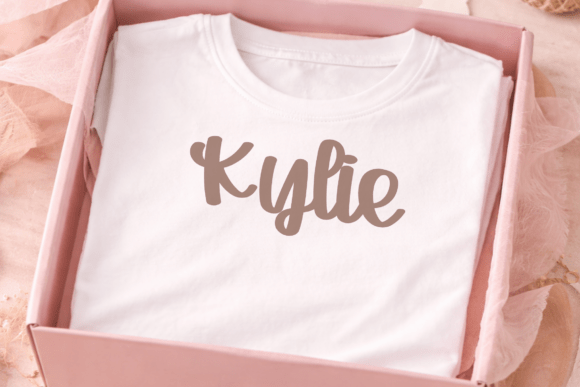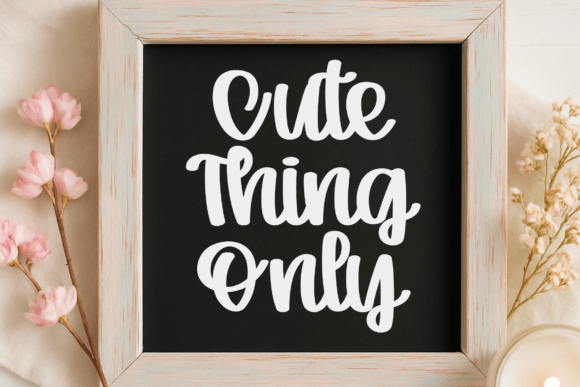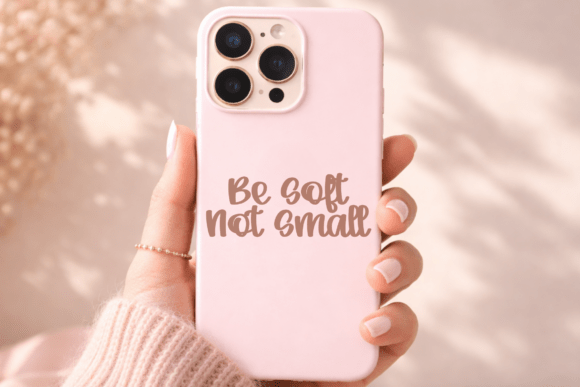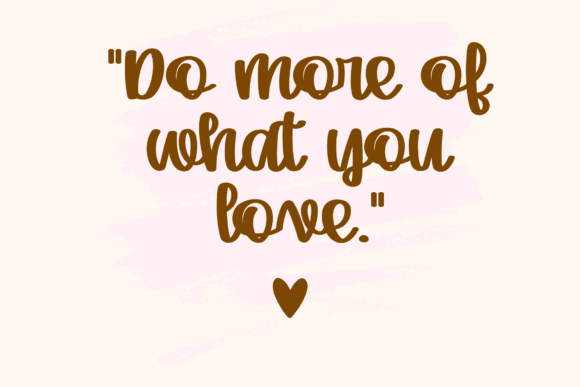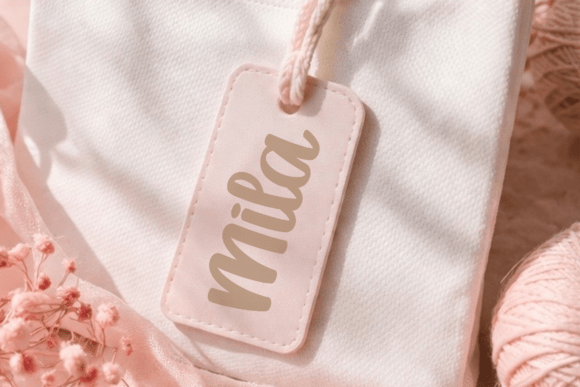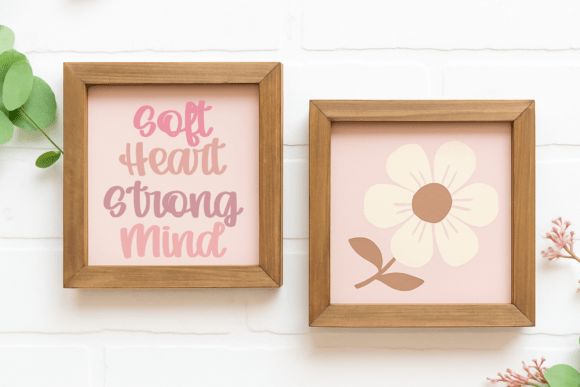
Earl Grey Font: The Ultimate Guide to a Warm and Friendly Handwritten Script Font
Are you tired of using the same old fonts in your designs? Look no further than Earl Grey, a warm and friendly handwritten script font that’s perfect for bringing a relaxed and comfortable feeling to your projects. With its smooth curves and natural flow, Earl Grey creates a soft and approachable look that’s effortless and cozy. In this article, we’ll dive into the world of Earl Grey font and explore its features, benefits, and uses.
What is Earl Grey Font?
Earl Grey is a beautifully crafted handwritten script font that’s designed to bring a sense of warmth and friendliness to your designs. Its smooth curves and natural flow make it perfect for creating a soft and approachable look that’s perfect for everyday creative projects. Whether you’re working on branding, social media, digital planners, or lifestyle content, Earl Grey is the perfect choice.
Features of Earl Grey Font
Earl Grey font has several features that make it stand out from other fonts. Some of its key features include:
- Smooth curves and natural flow: Earl Grey’s smooth curves and natural flow create a soft and approachable look that’s effortless and cozy.
- Clean yet playful style: Earl Grey’s clean yet playful style makes it easy to read while still maintaining a charming handwritten personality.
Benefits of Using Earl Grey Font
There are several benefits to using Earl Grey font in your designs. Some of the benefits include:
- Creates a relaxed and comfortable feeling: Earl Grey’s warm and friendly tone creates a relaxed and comfortable feeling that’s perfect for everyday creative projects.
- Perfect for branding and social media: Earl Grey’s clean yet playful style makes it perfect for branding and social media content.
- Easily readable: Earl Grey’s smooth curves and natural flow make it easily readable, even at small sizes.
Uses of Earl Grey Font
Earl Grey font is perfect for a variety of uses, including:
- Branding: Earl Grey’s warm and friendly tone makes it perfect for branding projects, such as logos, business cards, and letterheads.
- Social media: Earl Grey’s clean yet playful style makes it perfect for social media content, such as Instagram posts, Facebook updates, and Twitter tweets.
- Digital planners: Earl Grey’s smooth curves and natural flow make it perfect for digital planners, such as daily planners, weekly planners, and monthly planners.
- Lifestyle content: Earl Grey’s warm and friendly tone makes it perfect for lifestyle content, such as blog posts, articles, and eBooks.
Tips for Using Earl Grey Font
Here are some tips for using Earl Grey font in your designs:
- Use it for headings and titles: Earl Grey font is perfect for headings and titles, as it creates a warm and friendly tone that’s perfect for grabbing attention.
- Pair it with other fonts: Earl Grey font pairs well with other fonts, such as sans-serif fonts and serif fonts.
- Experiment with different colors: Earl Grey font looks great in a variety of colors, from bold and bright to soft and pastel.
In conclusion, Earl Grey font is a warm and friendly handwritten script font that’s perfect for bringing a relaxed and comfortable feeling to your designs. With its smooth curves and natural flow, Earl Grey creates a soft and approachable look that’s effortless and cozy. Whether you’re working on branding, social media, digital planners, or lifestyle content, Earl Grey is the perfect choice. So why not give Earl Grey font a try today and see the difference it can make in your designs?